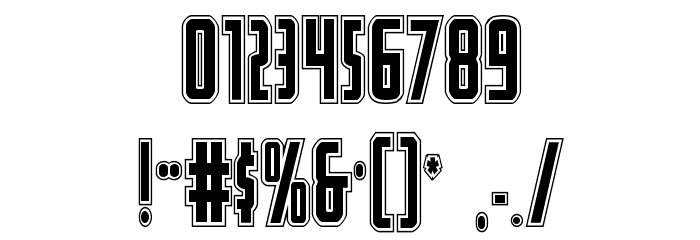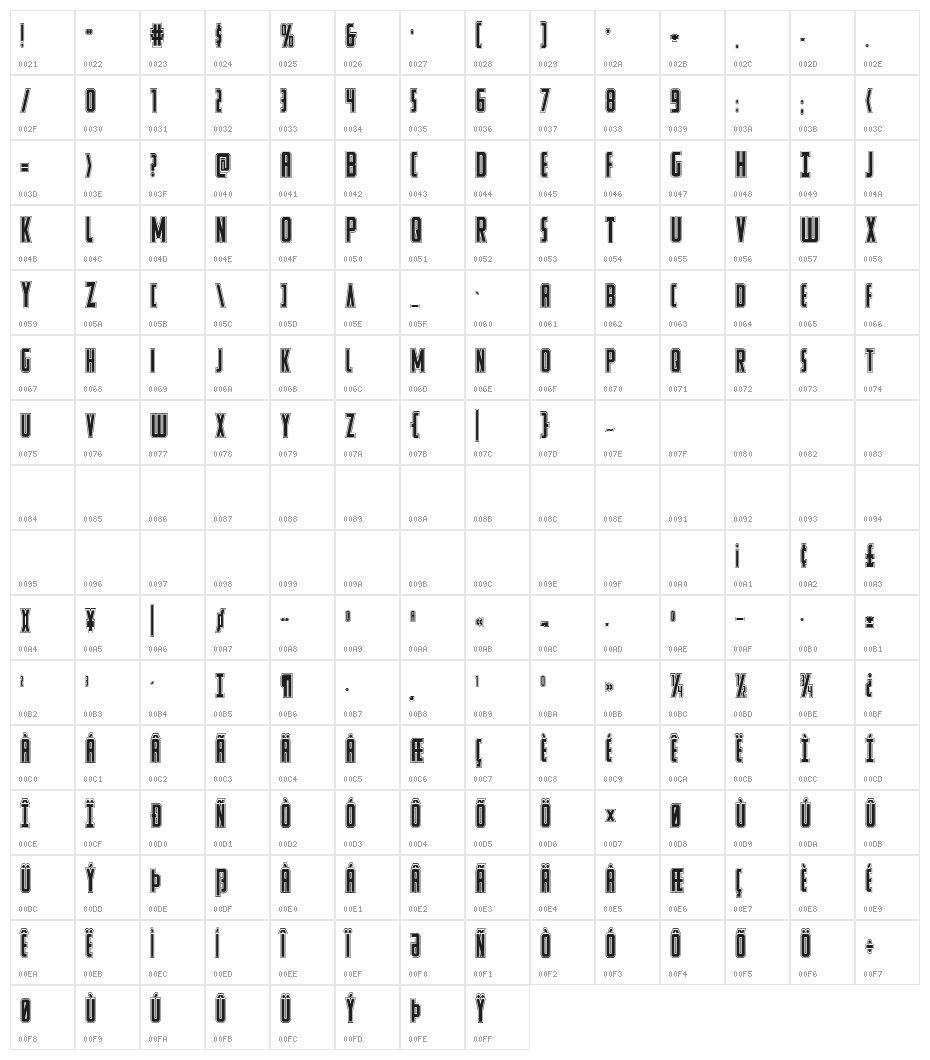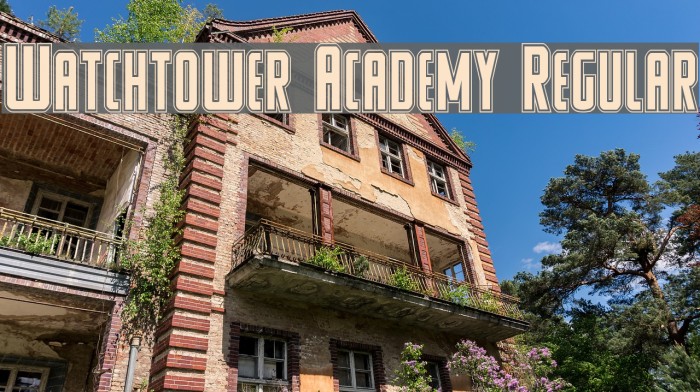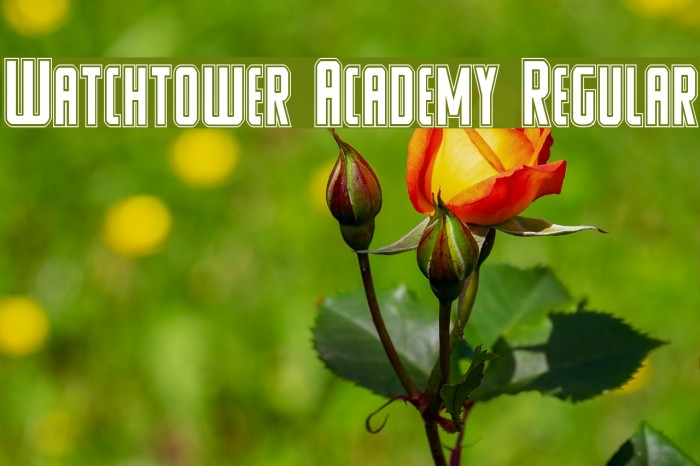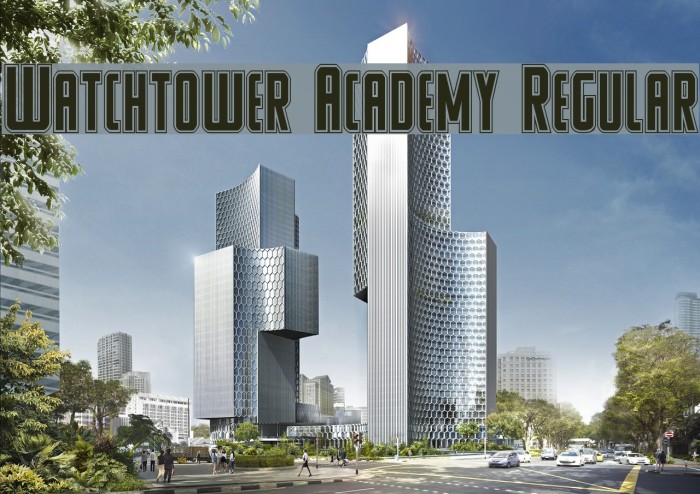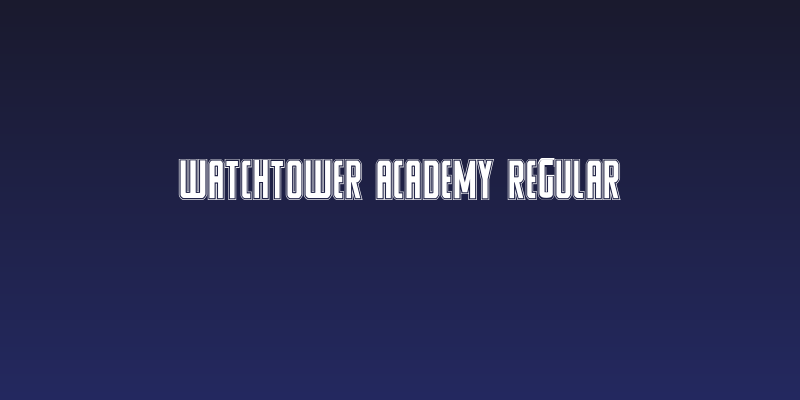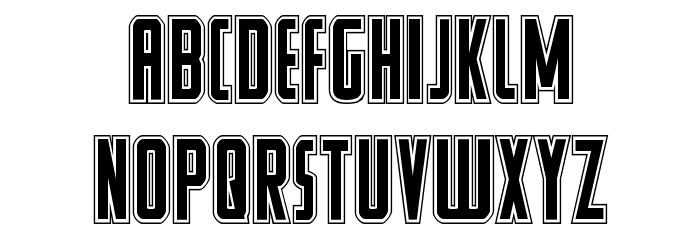
Watchtower Academy Regular Font
Watchtower Academy Regular Description
This font features a bold and impactful design with a strong outline that gives it a three-dimensional appearance. The uppercase letters are tall and narrow, with a distinct geometric style that is both modern and classic. The characters are evenly spaced, providing a clean and organized look. The numbers and special characters maintain the same bold and outlined aesthetic, ensuring consistency across all elements. This font is ideal for making a statement, with its eye-catching design that draws attention.